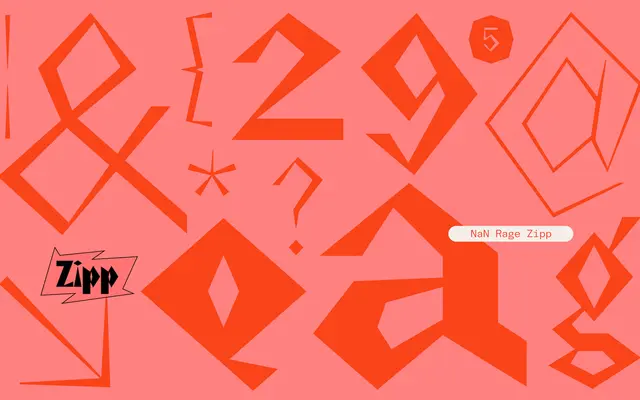
NaN Rage Zipp
A deliberately destabilised display type that replaces curves with diamond forms and sharp spikes, drawing equally from glitch culture and German expressionist woodcuts.
Derived from NaN Rage Poly, Zipp takes the reduction of bezier curves and points to its logical extreme: round letters become diamonds balanced on their corners and stems taper to needle-sharp points. Across four widths and nine weights, the family spans from compressed headline setting to usable text columns where individual letters sit like small sculptures on the page. It belongs to NaN's wider Rage Typographic Universe, sharing structural DNA with its siblings while occupying the furthest, most fractured position in the series.
Derived from NaN Rage Poly, Zipp strips curves and points to geometric extremes, producing diamond-shaped rounds and spike-like stems that place it firmly in the experimental display category, drawing on glitch aesthetics and German expressionist woodcut traditions.